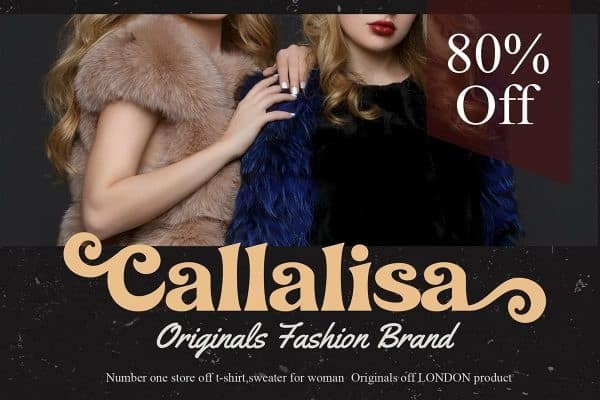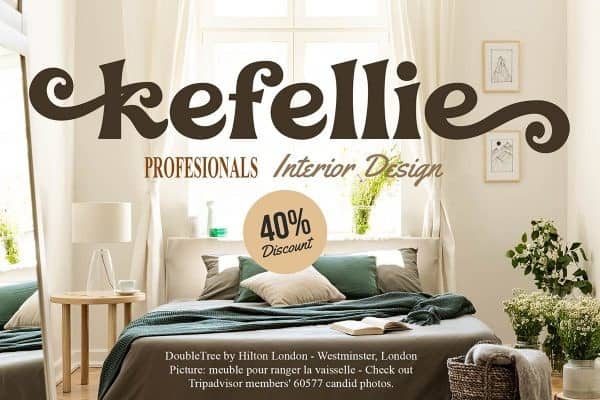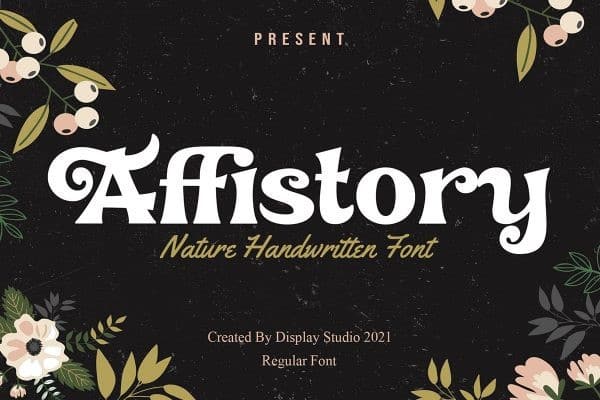
Introducing Affistory Display Font, a display typeface that inspired by the vintage/classic letterforms. This typeset is perfect for brand logo, invitations, greeting card, or even any kind of project. With multilingual feature and style variations, this typeface would further enhance the aestethical aspect of your work.